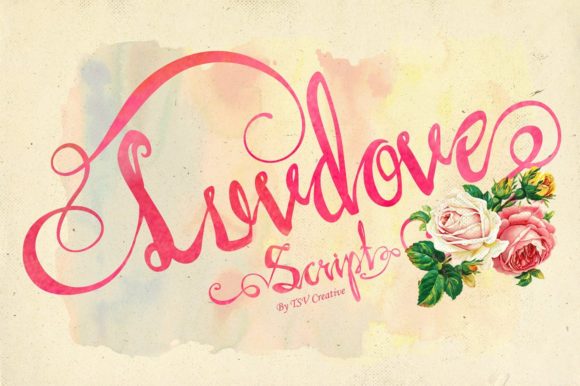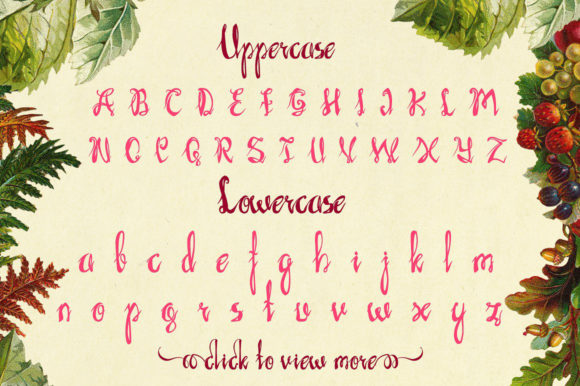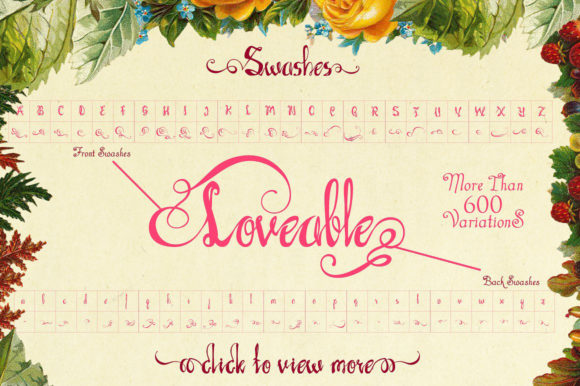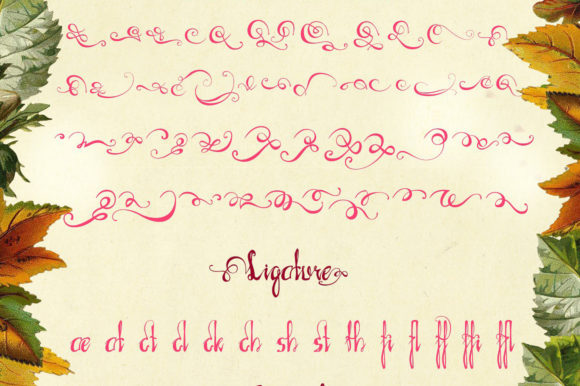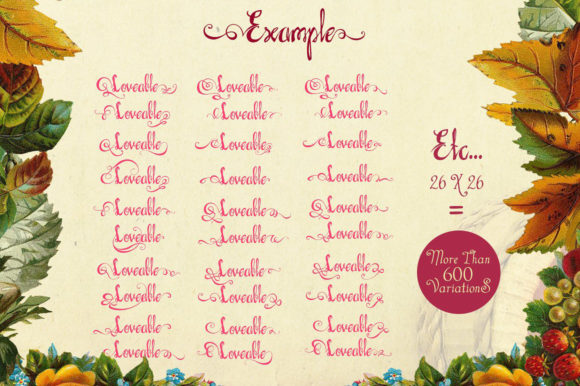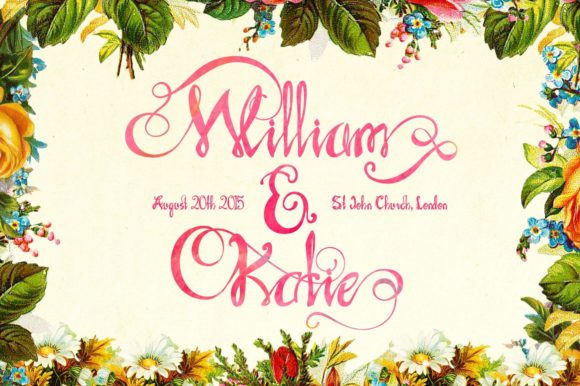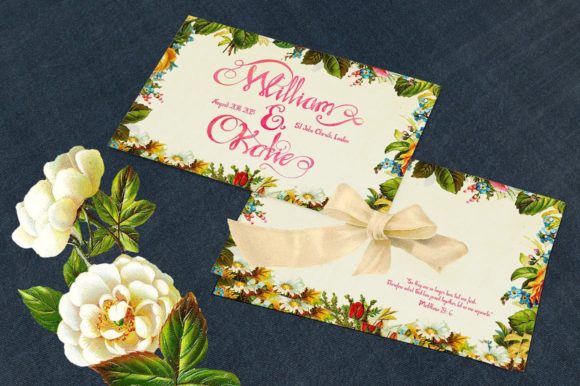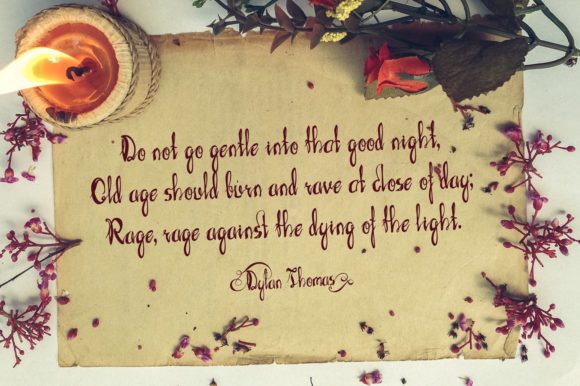
Luvdove Font
About Luvdove Font
Luvdove is a delicate and romantic handwritten font with incredible swashes. Fall in love with its authentic charm, and turn any design idea into a stunner!